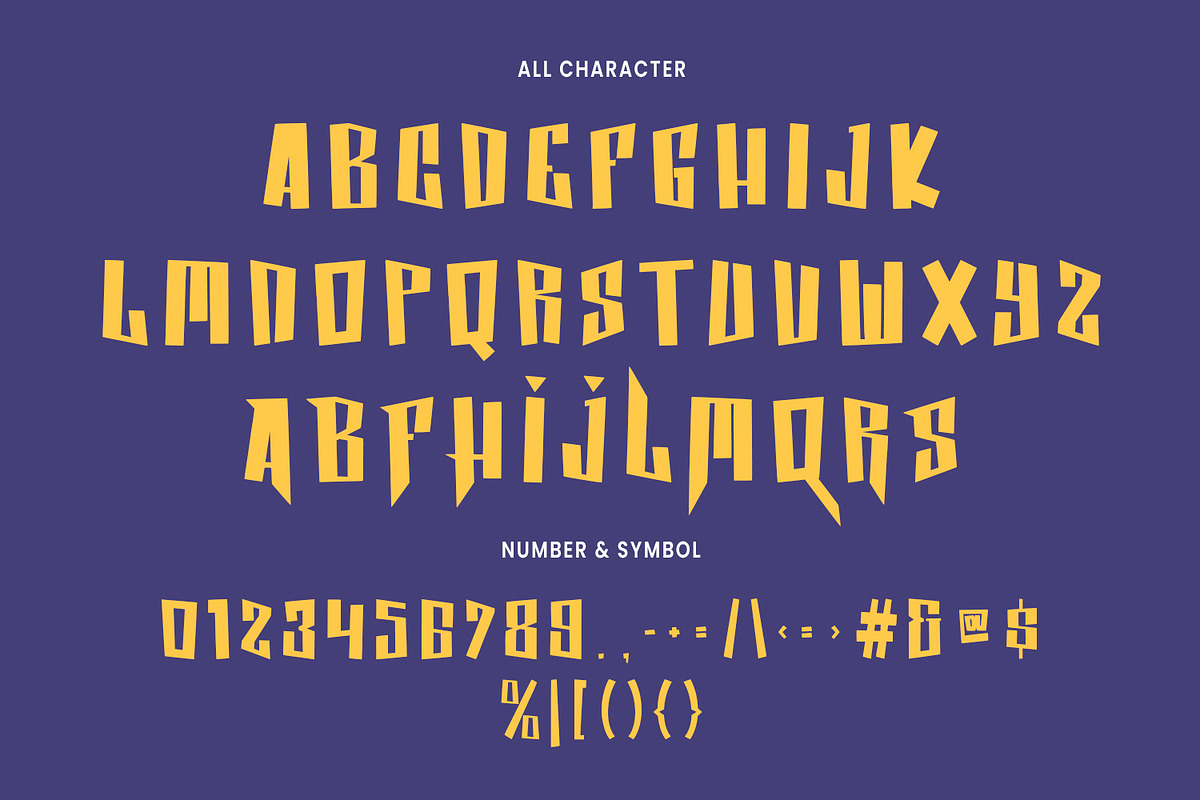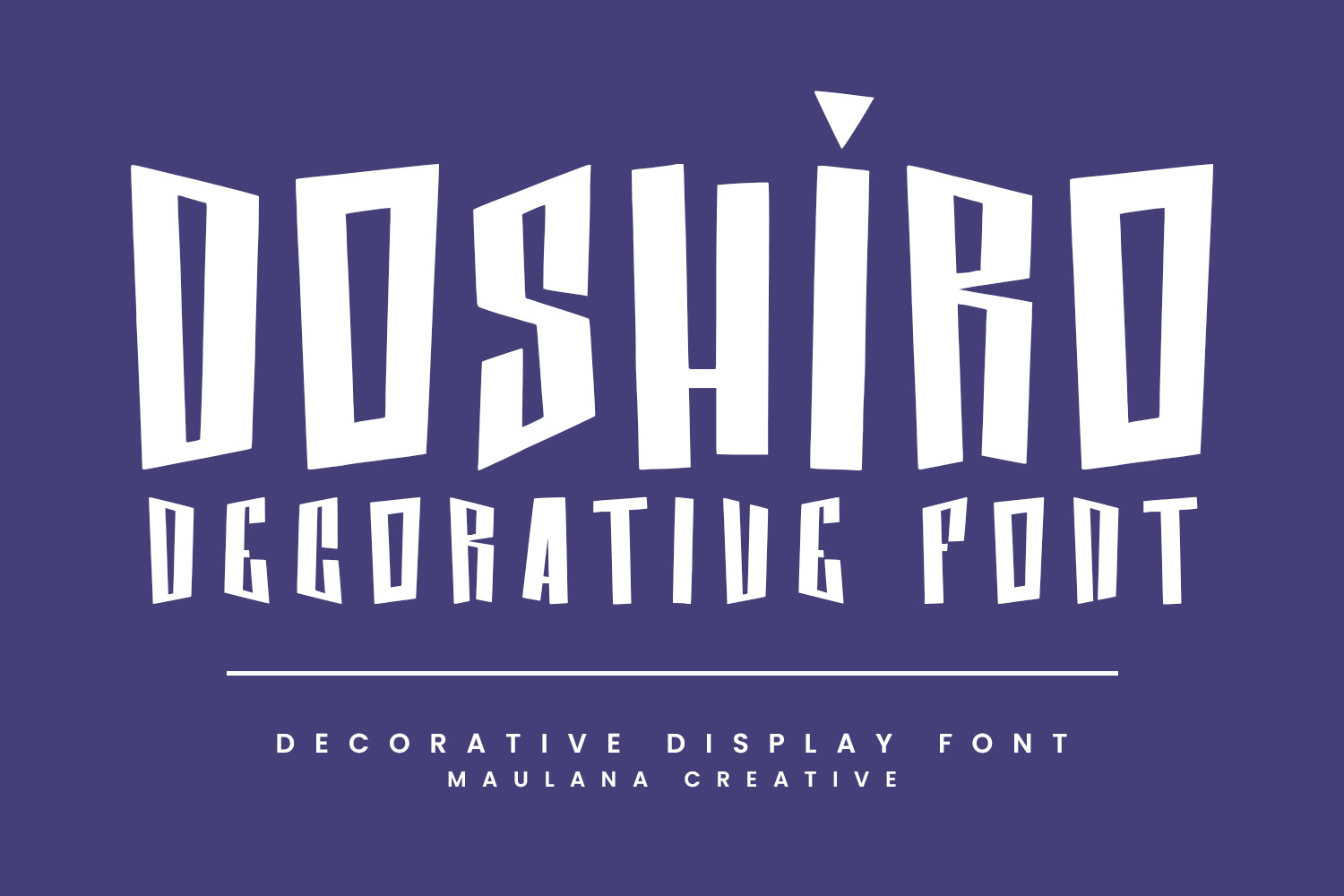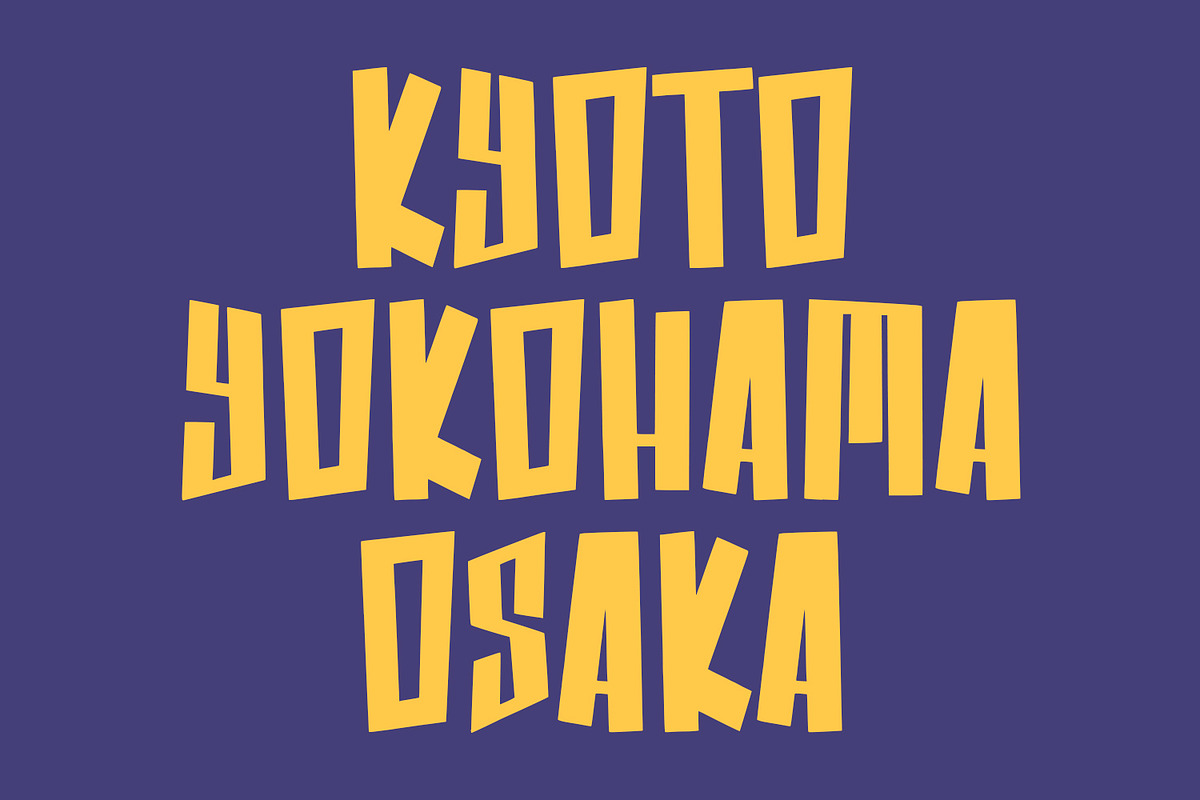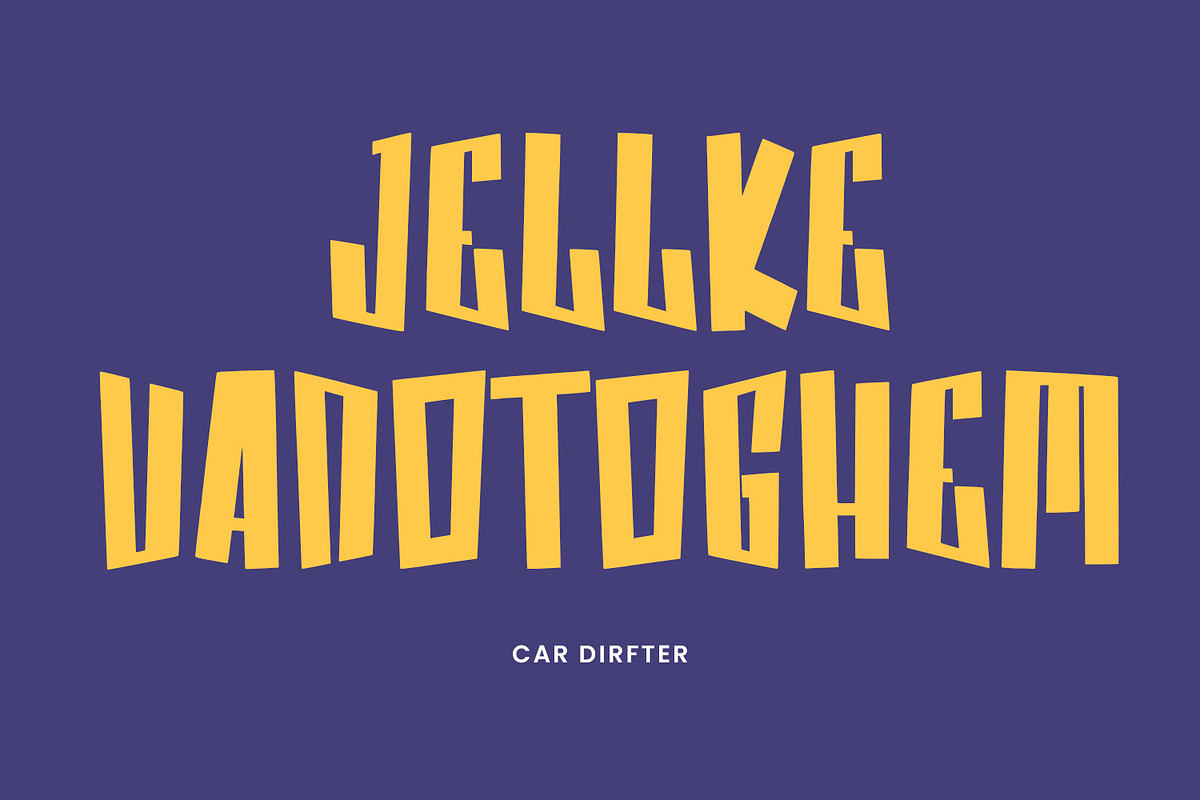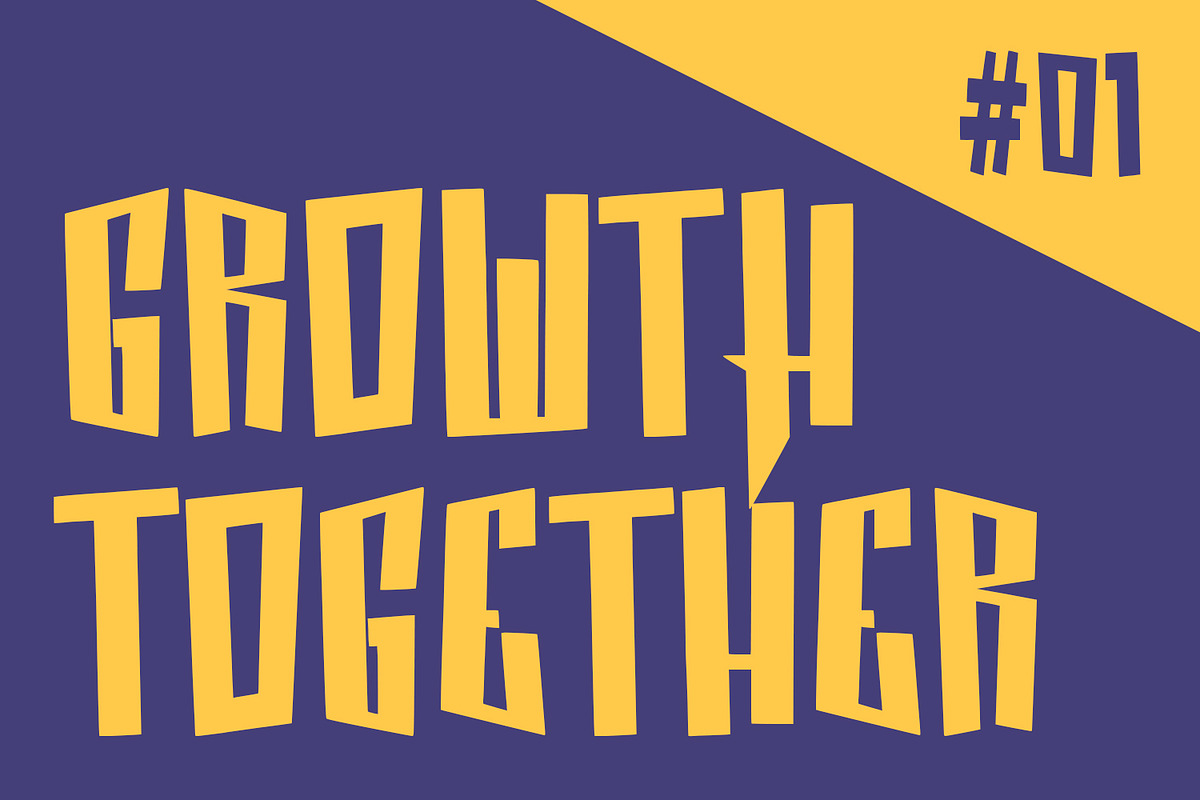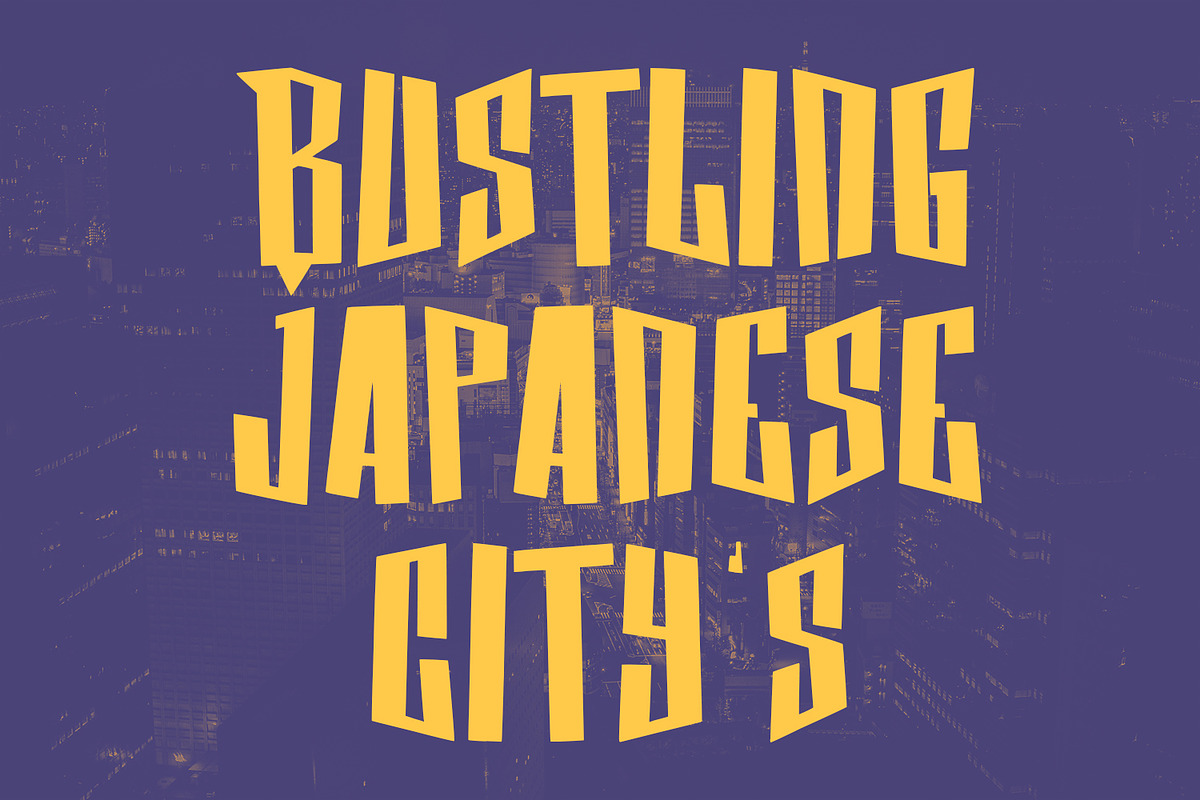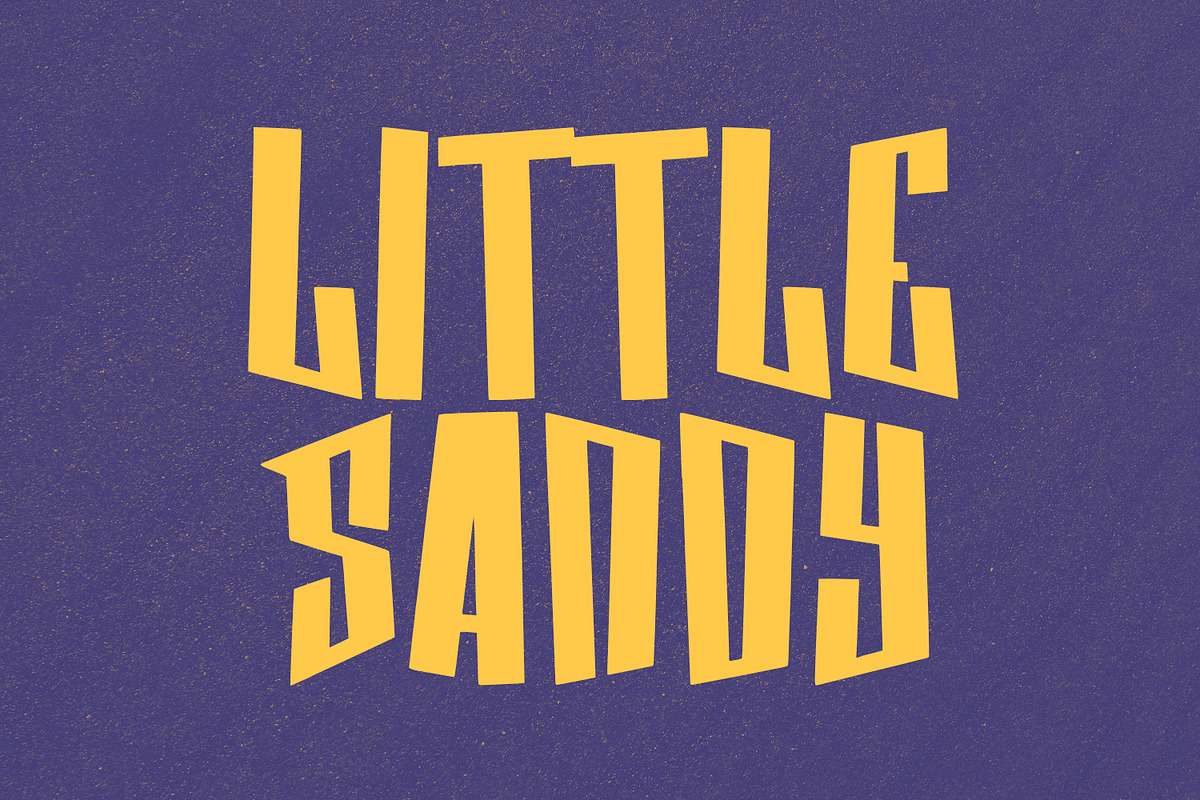
Doshiro Comic Display Typeface
Doshiro comic display font, bold stroke, fun character with a bit of ligatures. To give you an extra creative work. Doshiro display font support multilingual more than 100+ language. This font is good for logo design, Social media, Movie Titles, Books Titles, a short text even a long text letter and good for your secondary text font with script or serif. Make a stunning work with Doshiro display font.